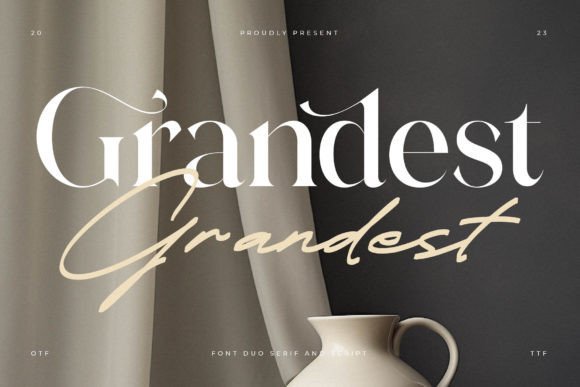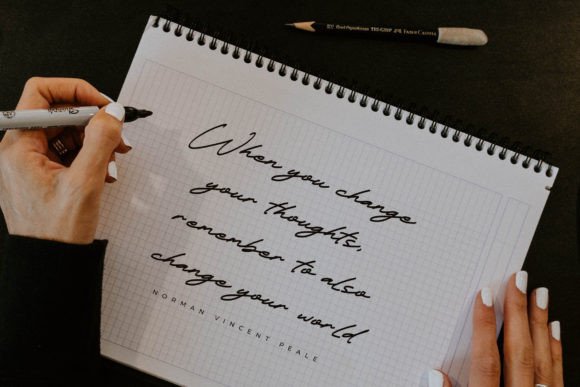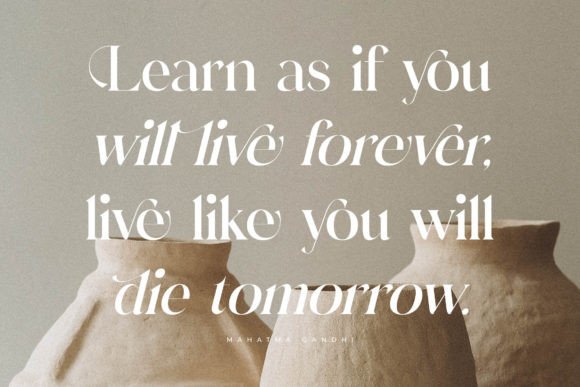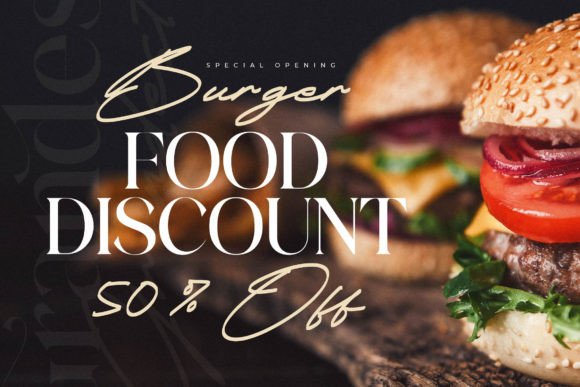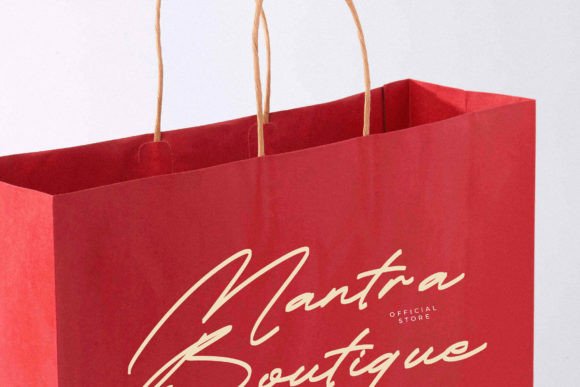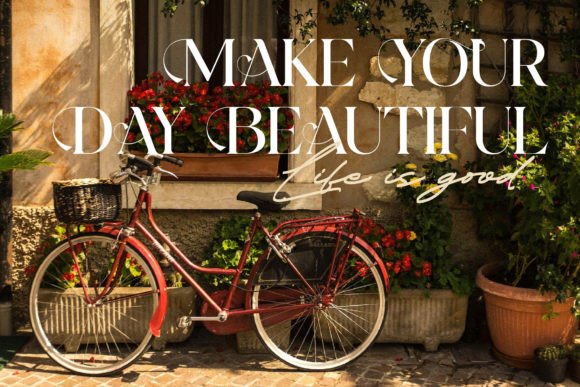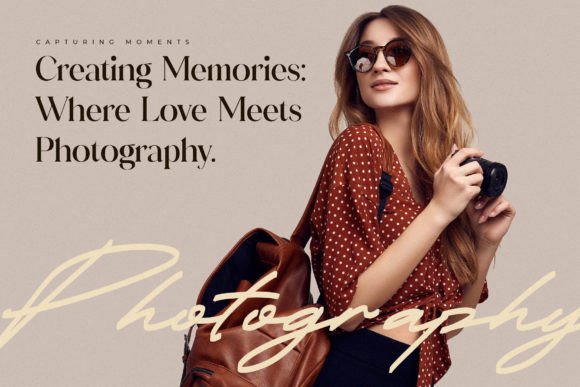
The Birth of a Masterpiece: Unveiling the Grandest Font Duo
Have you ever sat at your desk, staring at a blank canvas, trying to bring a concept to life? The cursor blinks, and your mind goes blank. Suddenly, a spark of inspiration strikes, and the words start flowing. This is where the magic happens, and the true art of design unfolds.
For designers, the search for the perfect font can be a daunting task. But what if you had a typeface that could elevate your work to new heights? Enter the Grandest Font Duo, a stunning serif and script combination that exudes elegance and sophistication. With its unique style and modern look, this font is perfect for creating unforgettable logos, book titles, and magazine covers.
This PUA encoded font offers unparalleled flexibility, allowing designers to access a vast array of glyphs and ligatures with ease. The Grandest Font Duo is a game-changer for creatives, and we can’t wait to see what masterpieces you’ll create with it.
Key Features of Grandest Font
- Font Family: Grandest Font comes in 3 different font families – Grandest Regular, Grandest Italic, and Grandest Bold.
- Character Set: Supports a wide range of languages, including Latin, Cyrillic, and Greek alphabets, with over 1000 glyphs.
- Unique Characteristics: Features a unique blend of modern and classic elements, with intricate details and ornate flourishes, making it perfect for luxury and high-end designs.
Grandest Font Review
As a designer, I’ve had the chance to play around with Grandest Font, and I have to say, it’s got some nice qualities to it ✨. First off, the typography is sleek and modern, with clean lines and a nice balance between font sizes and weights. The font also supports a wide range of languages, which is a definite plus for global projects.
Another area where Grandest Font shines is its flexibility ✨. It can be used for both digital and print media, making it a versatile choice for designers. Plus, the font’s weight and spacing options make it easy to customize to fit your design needs.
What Doesn’t Work So Well
- ⚠️ Limited character set: While Grandest Font supports many languages, its character set is not as extensive as some other fonts. This might be a problem for designers working on projects with specific character requirements.
- ⚠️ Over-reliance on bold text: While the font’s bold weight is nice, it’s a bit too bold at times, making it feel like it’s relying too heavily on bold text to get the point across.
Overall, I think Grandest Font is a solid choice for designers looking for a modern, flexible font. While it’s not perfect, its strengths outweigh its limitations, making it a great addition to any designer’s toolkit.
Tips for Getting the Most Out of Grandest Font
1. Use Grandest Font for headings and titles to create a dramatic effect.
2. Experiment with different font sizes and colors to create a visually appealing design.
3. Combine Grandest Font with other fonts to create a unique and eye-catching typography.
2. Event branding and signage.
3. Magazine and newspaper headlines.
Great Vibes Font is a beautiful script font that is perfect for creating a sense of elegance and sophistication. It’s ideal for use in headings, titles, and other text elements where you want to add a touch of luxury. Compared to Grandest Font, Great Vibes Font has a more refined and polished look, making it a great choice for high-end designs.
Pacifico Font is a stylish and modern script font that is perfect for creating a sense of relaxation and calmness. It’s ideal for use in headings, titles, and other text elements where you want to add a touch of serenity. Compared to Grandest Font, Pacifico Font has a more laid-back and casual look, making it a great choice for designs that require a relaxed tone.